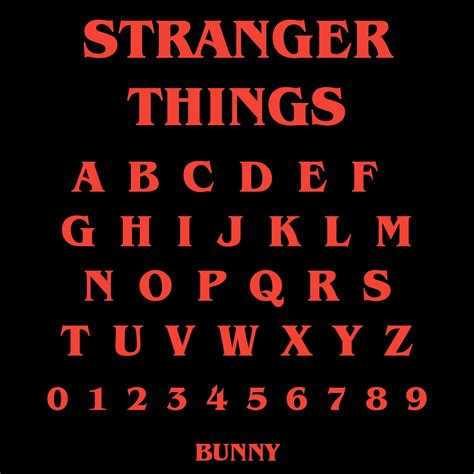
Alphabet Stranger Things Font. It is a free font. Web here’s an example of the typographic style that inspired the stranger things title:
The font used for the title of the web tv series. Web benguiat bold by image club graphics is a font based on the title logo from the tv show stranger things. Web stranger things is an american science fiction drama psychological horror web series created by the duffer brothers and released by netflix on 15 july 2016. It is a free font. Dec 18, 2020 11141 2509. Centered caps with large first and last letters, middle letters shifted up. Web 7 stranger things fonts you probably need in your life 01. Many of the 1980s covers for stephen. Web here’s an example of the typographic style that inspired the stranger things title: The only way to start our list is with the now iconic itc benguiat,.
It is a free font. Web here’s an example of the typographic style that inspired the stranger things title: Centered caps with large first and last letters, middle letters shifted up. It is a free font. The font used for the title of the web tv series. Web stranger things is an american science fiction drama psychological horror web series created by the duffer brothers and released by netflix on 15 july 2016. Web 7 stranger things fonts you probably need in your life 01. Web benguiat bold by image club graphics is a font based on the title logo from the tv show stranger things. Dec 18, 2020 11141 2509. Many of the 1980s covers for stephen. The only way to start our list is with the now iconic itc benguiat,.